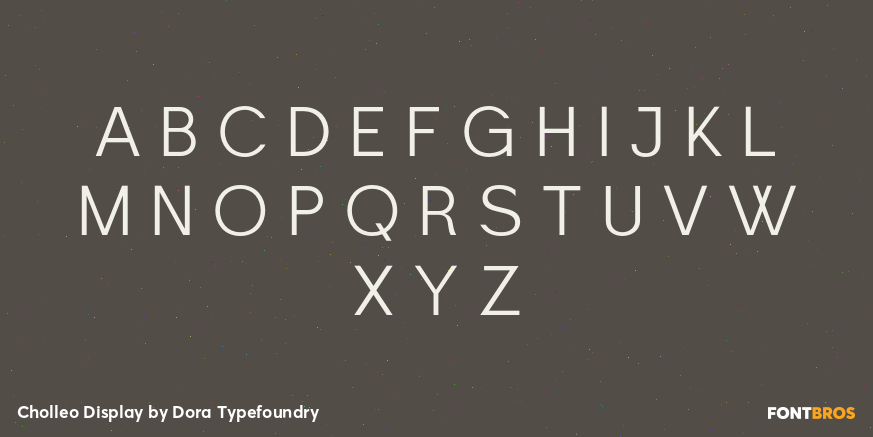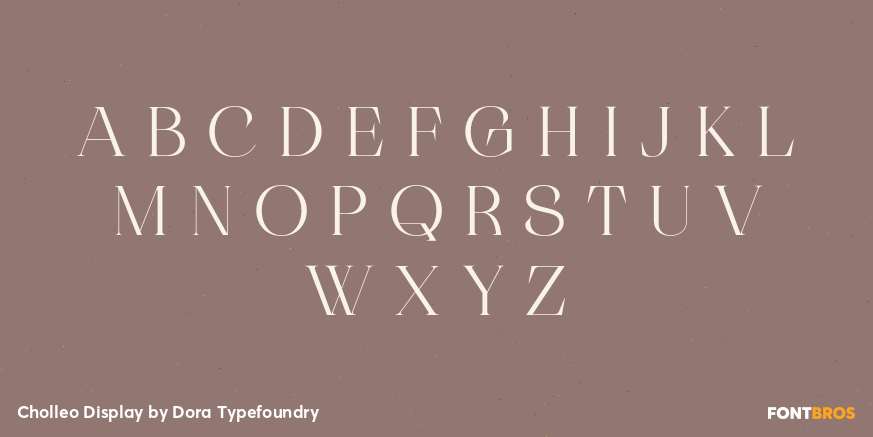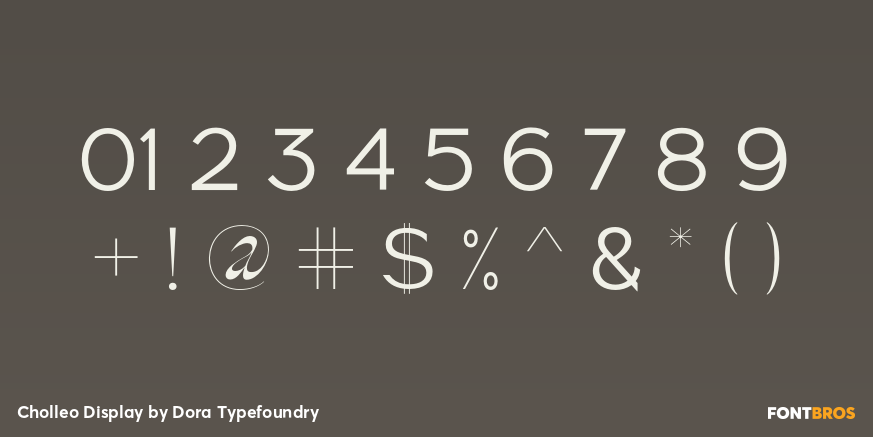
Cholleo Display
Font Family by Dora Typefoundry
Buy NowCholleo Display is a unique modern sans and serif type in different mixed types to combine in one font, it is recommended you can use this font for magazines, posters, logos, titles, quotes and suitable for headlines.which makes your text stand out! you can see on the picture.
· All Caps Letters with different uppercase and lowercase letters
· Italic version as an alternative
· Number & Symbol